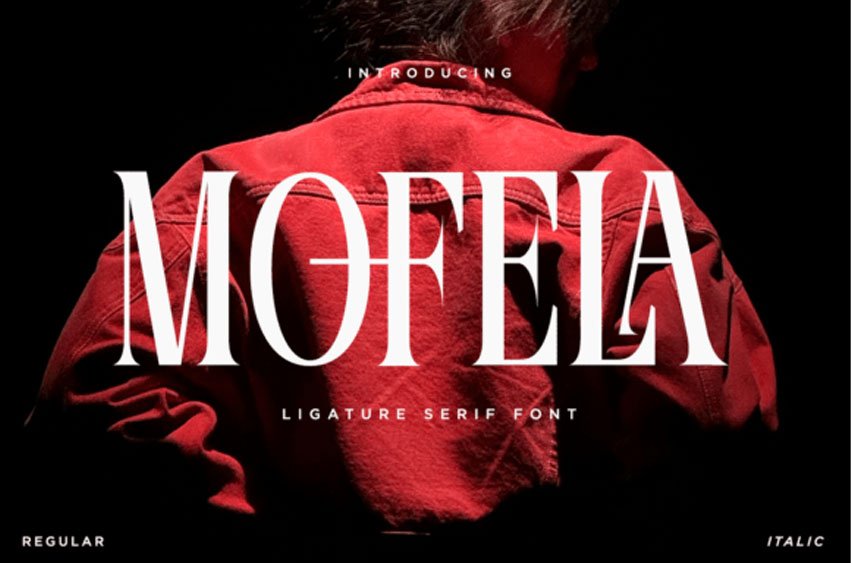
Mofela Font is a sophisticated ligature serif font that exudes timeless elegance and modern refinement. Designed with sleek, elongated letterforms and refined contrasts, it’s perfect for creating high-end and stylish typography. Its ligature combinations add a creative flair, allowing your designs to stand out with unique and seamless connections between characters.
This font is ideal for luxury branding, editorials, logos, magazine layouts, invitations, product packaging, and social media designs that demand a polished and professional look. With both Regular and Italic styles, Mofela offers versatility to suit minimal and bold concepts alike.
Mofela font is also PUA-encoded, ensuring effortless access to all glyphs, swashes, and alternate characters to help you customize your creations with ease.